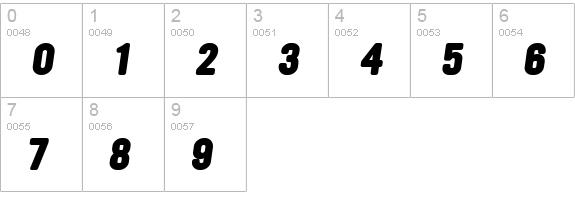
Ultramagnetic ExtraBoldOblique Font Details
Ultramagnetic ExtraBoldOblique is an exceptionally bold and eye-catching font that demands attention with its striking presence. With its unique combination of thickness and slant, this font exudes a sense of power and dynamism, making it perfect for designs that require a strong visual impact. The sharp angles and clean lines of Ultramagnetic ExtraBoldOblique create a modern and edgy look, while the oblique slant adds a touch of elegance and sophistication. This font is versatile and can be used for a wide range of design projects, including headlines, logos, posters, advertisements, and more. What sets Ultramagnetic ExtraBoldOblique apart is its availability as a free font. Yes, you read that right! This amazing font is freely available to download at FontsMarket.com. Now, you can enjoy the boldness and uniqueness of Ultramagnetic ExtraBoldOblique without breaking the bank. Downloading Ultramagnetic ExtraBoldOblique from FontsMarket.com is a breeze. Simply visit the website, find the font, and click the download button. In just a few seconds, you'll have this powerful font ready to use in your creative endeavors. Whether you're a professional designer looking to add a touch of brilliance to your work or an amateur enthusiast wanting to experiment with typography, Ultramagnetic ExtraBoldOblique is the font for you. Its combination of strength, style, and availability make it a must-have in your font collection. So, don't miss out on this fantastic opportunity to enhance your designs with Ultramagnetic ExtraBoldOblique. Head over to FontsMarket.com today and start exploring the endless possibilities that this free font has to offer.